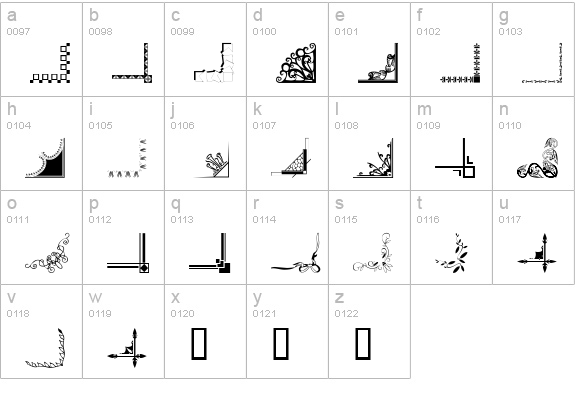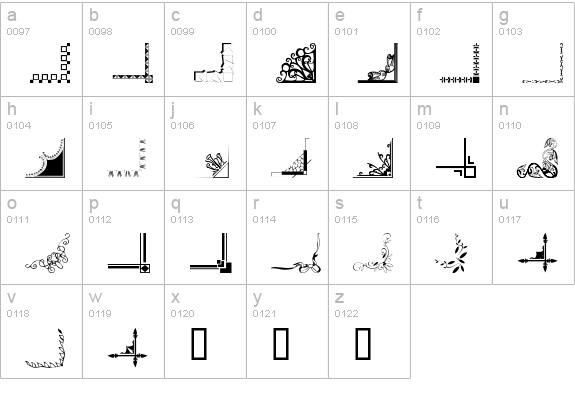
Border Corners 2 Font Details
Border Corners 2 font is a beautifully crafted typeface that adds a touch of elegance and sophistication to any design project. This font features intricate and ornate corners that can be used to frame text or images, adding a unique and stylish flair. The detailed design of Border Corners 2 font makes it perfect for invitations, greeting cards, posters, and more. Best of all, Border Corners 2 font is available for free download at FontsMarket.com. This means you can easily access this stunning font and use it in your projects without any cost. Whether you're a designer looking to enhance your creations or simply want to add a touch of creativity to your personal projects, Border Corners 2 font is a fantastic choice. Download it today and elevate your designs with this exquisite typeface.